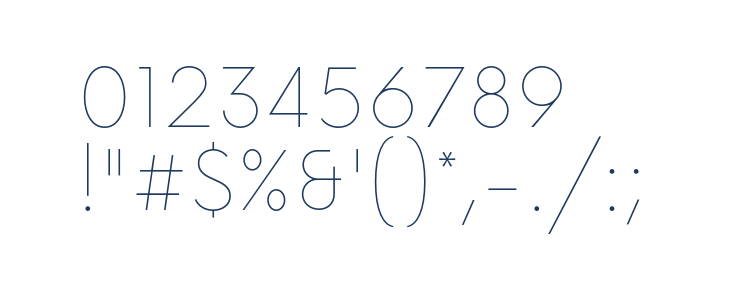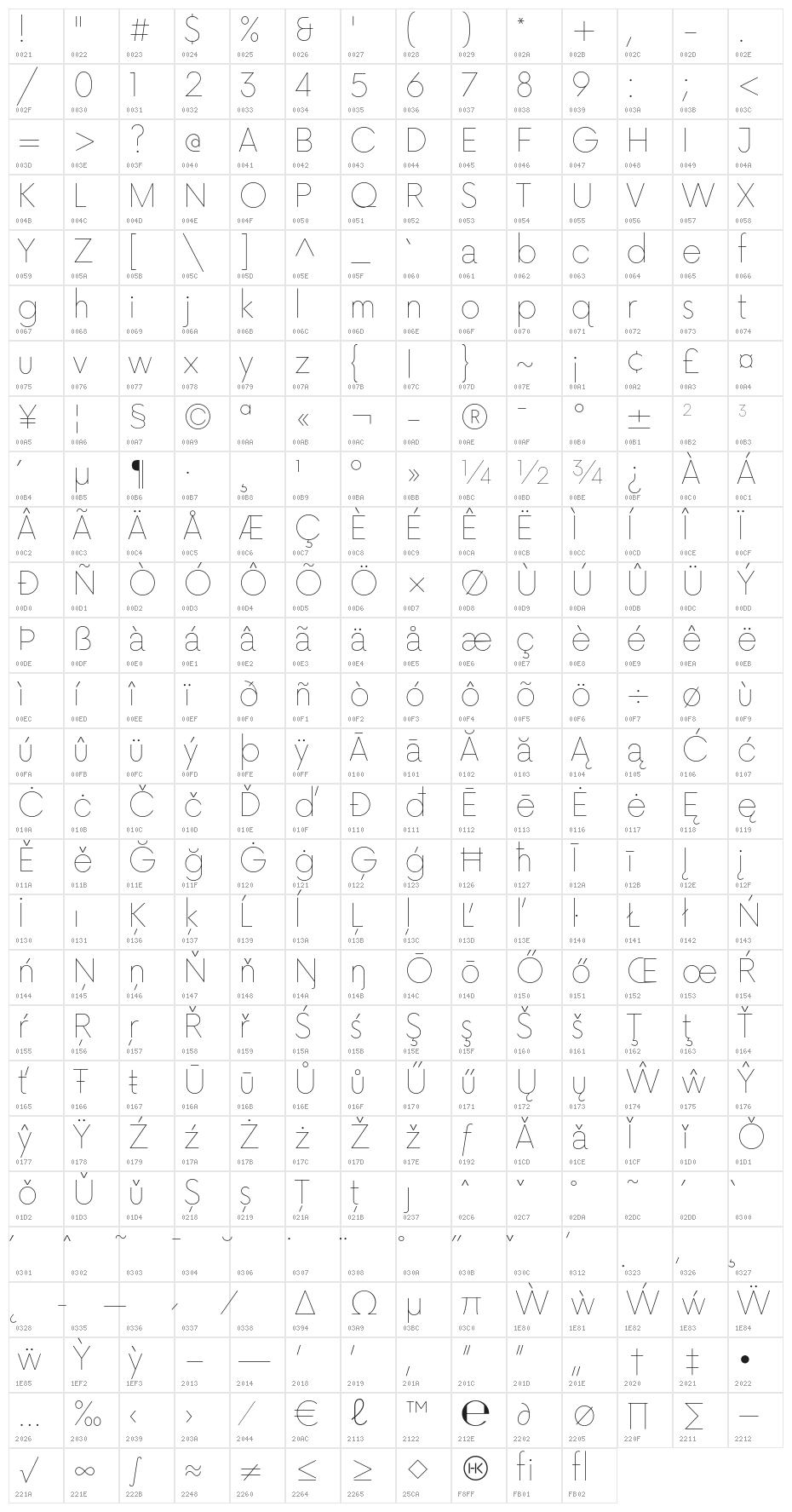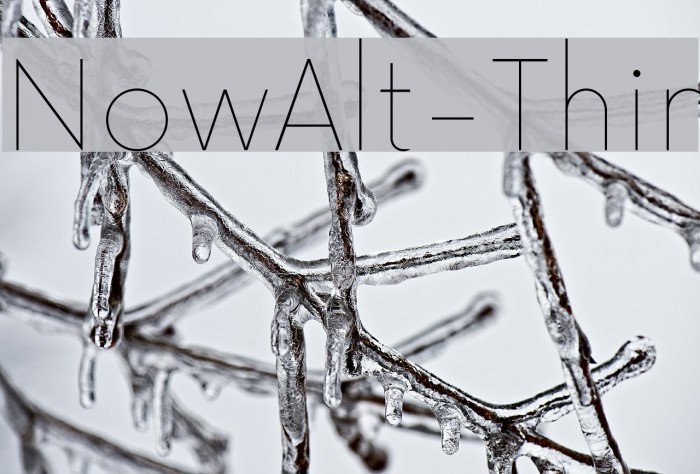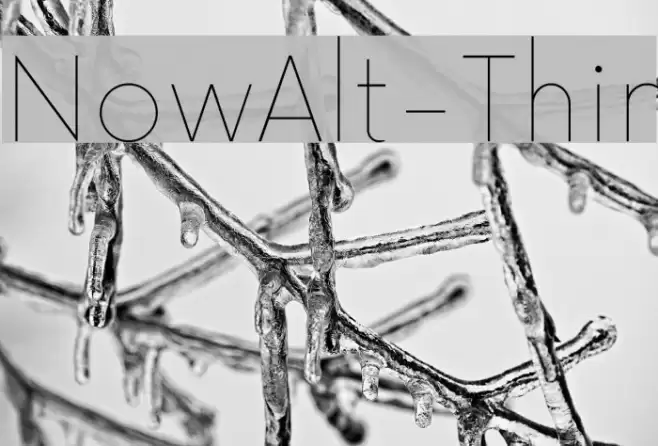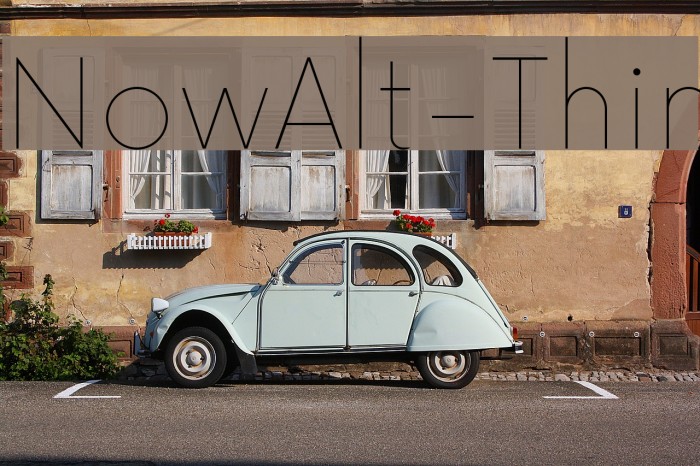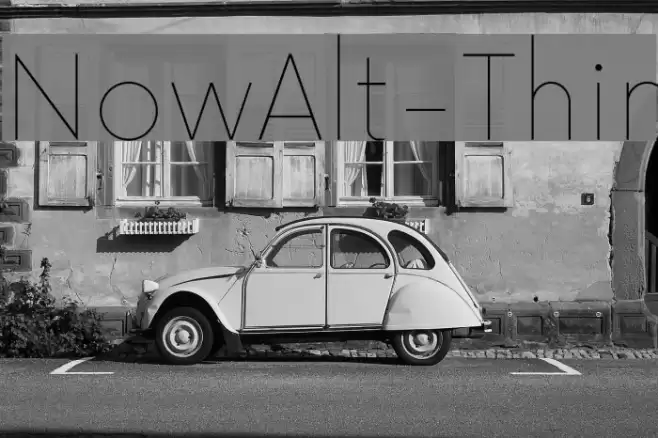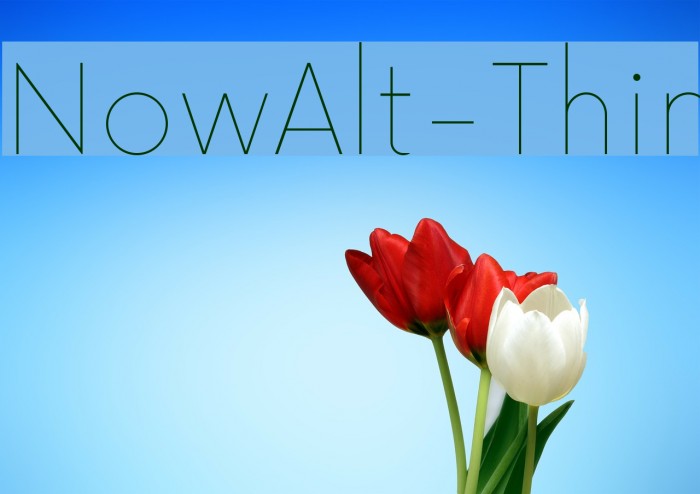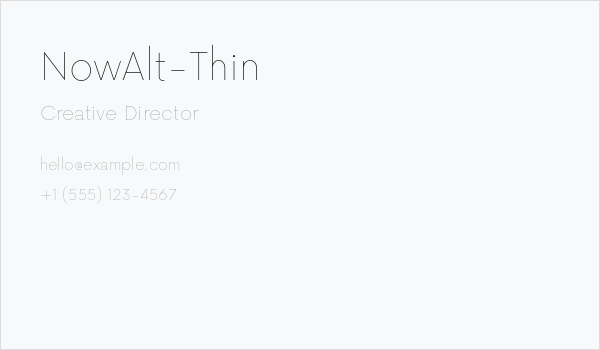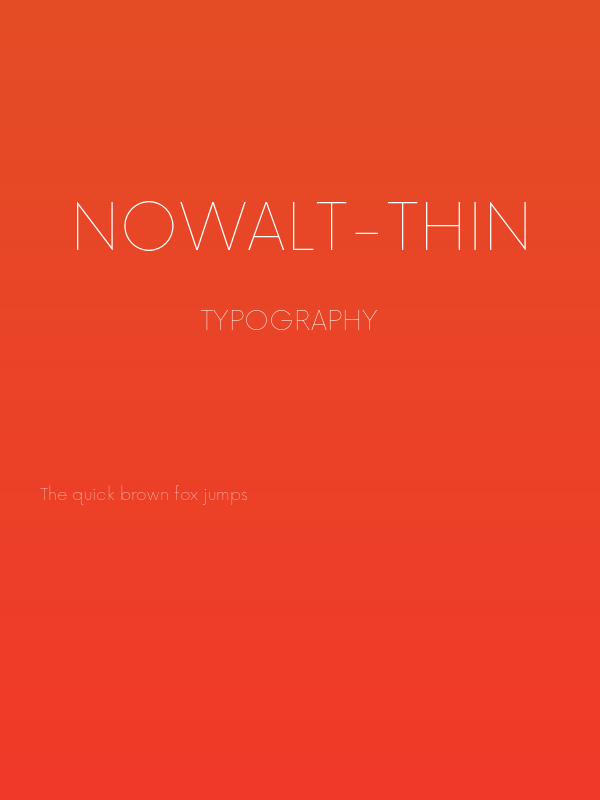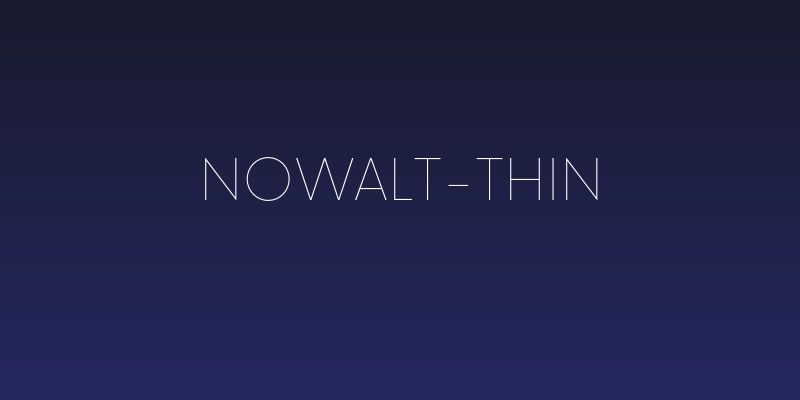
NowAlt-Thin Font
NowAlt-Thin Description
This font features a sleek and minimalist design with thin, uniform lines that create a modern and elegant appearance. The characters are well-proportioned and maintain a consistent stroke width throughout, giving it a clean and sophisticated look. The uppercase letters are tall and slightly elongated, while the lowercase letters are more rounded and compact, offering a nice contrast. The numerals are clear and easy to read, matching the overall aesthetic of the font. Special characters are included, maintaining the same thin and precise style, making this font versatile for various applications.
| Use Case | Headlines, Logos, Editorial design |
| Proposed Projects | Ideal for modern branding, minimalist design projects, high-end fashion labels, and editorial layouts. |